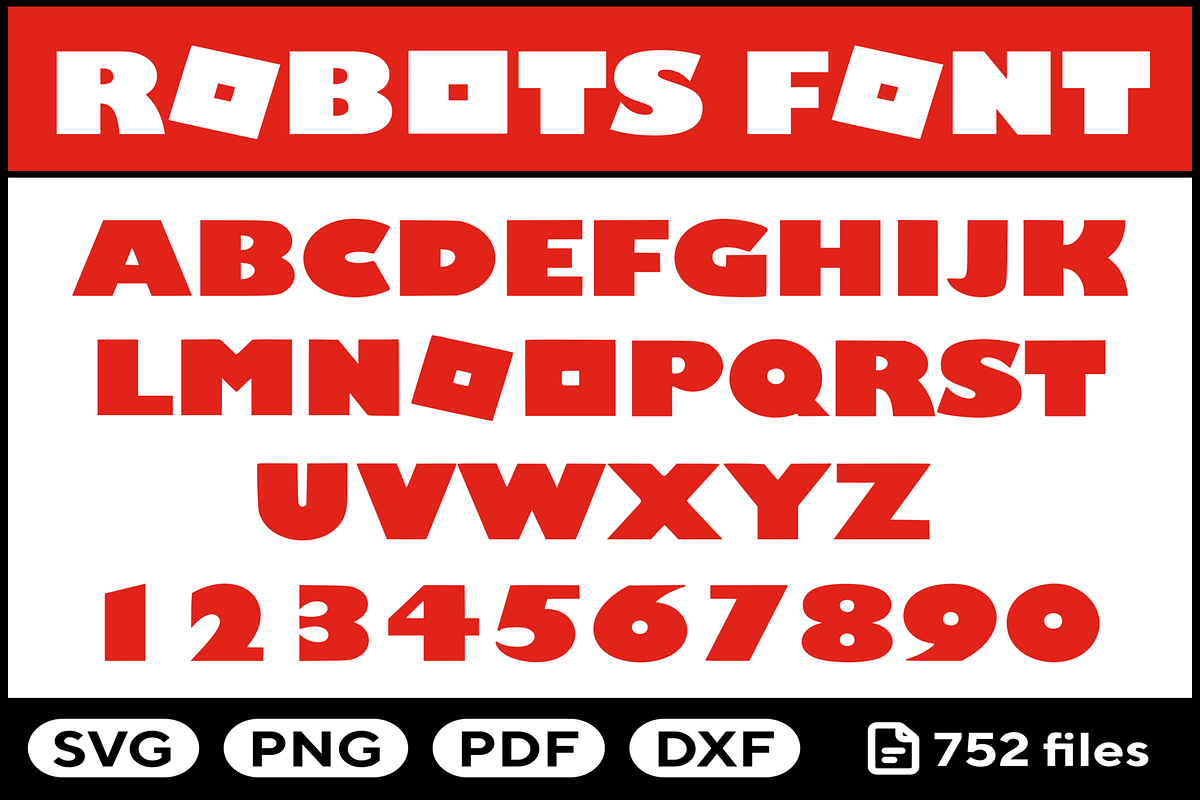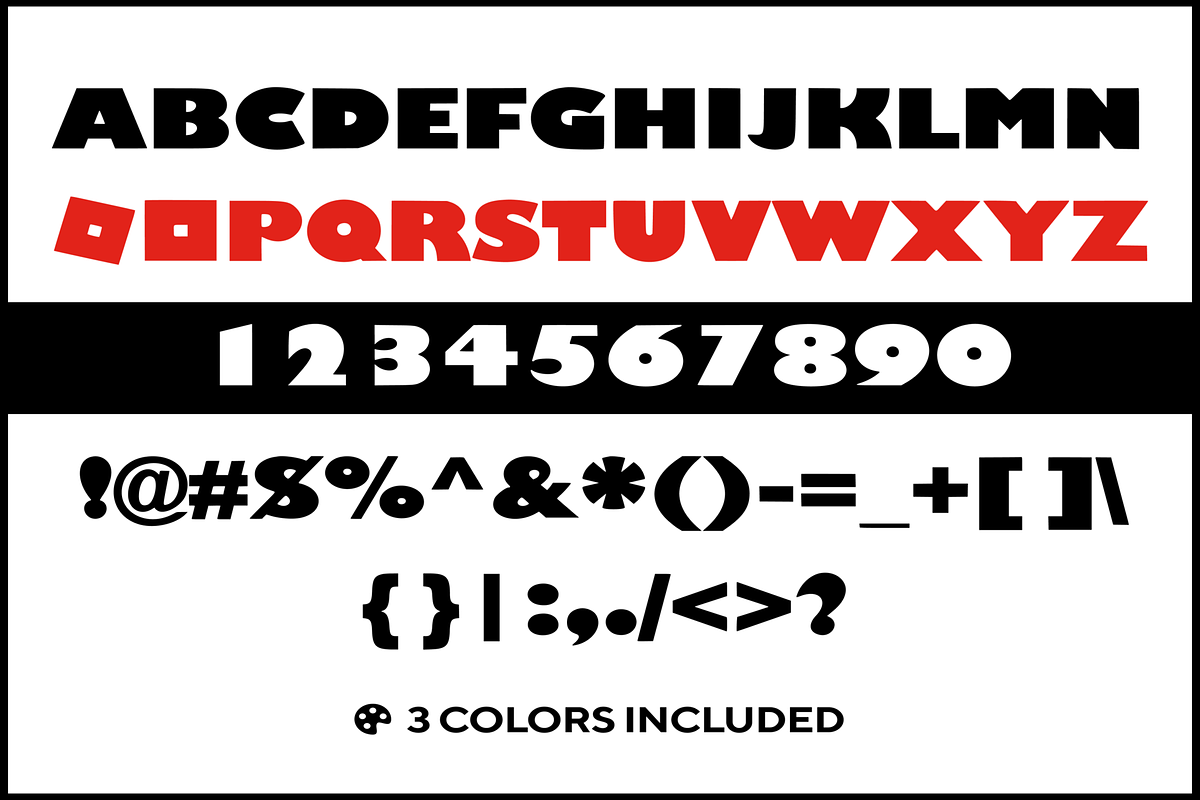
Robots Font Svg Png Pdf Dxf Alphabet
Font like Roblox - Robots, Alphabet. This High quality Handwriting font images can be used for all of your Crafting needs! SVG and PNG images are perfect for t-shirt design, scrapbooking, photo album, card making, coffee mug designs, prints, anything you want to cut with your Cricut and Silhouette. The possibilities are endless!